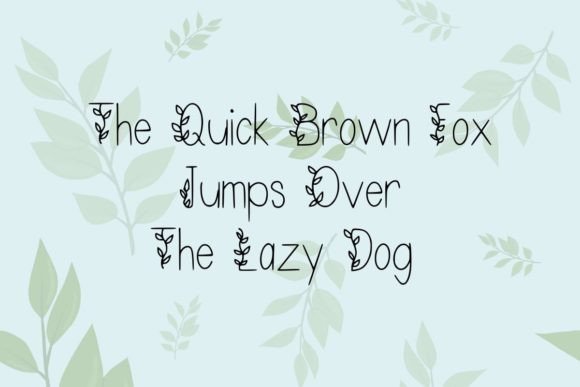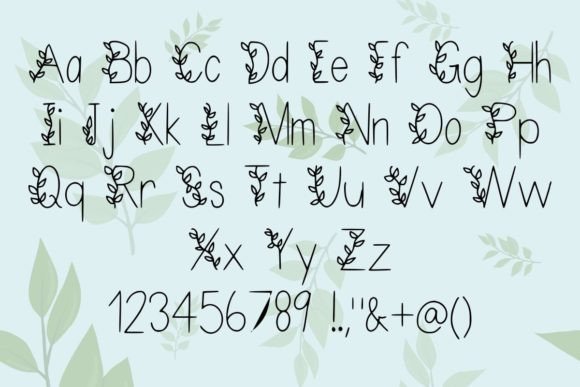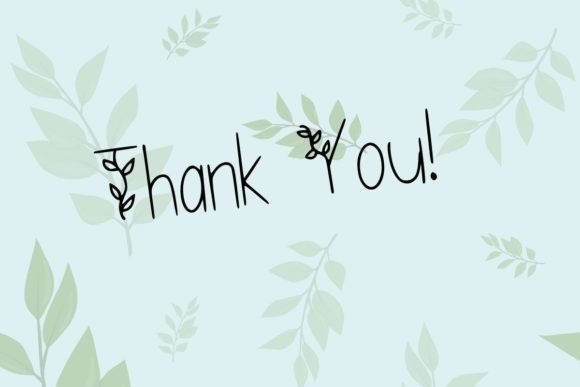
Introduction to Leafy Delight Font
Leafy Delight font adds a simply pretty flare to your creative projects.
It is perfect for wedding invitations, scrapbooking, journaling and much more .
Why Choose Leafy Delight Font?
Leafy Delight Font offers exceptional quality and versatility, making it a valuable addition to your design toolkit. Whether you’re creating for personal projects or commercial use, Leafy Delight Font delivers professional results.